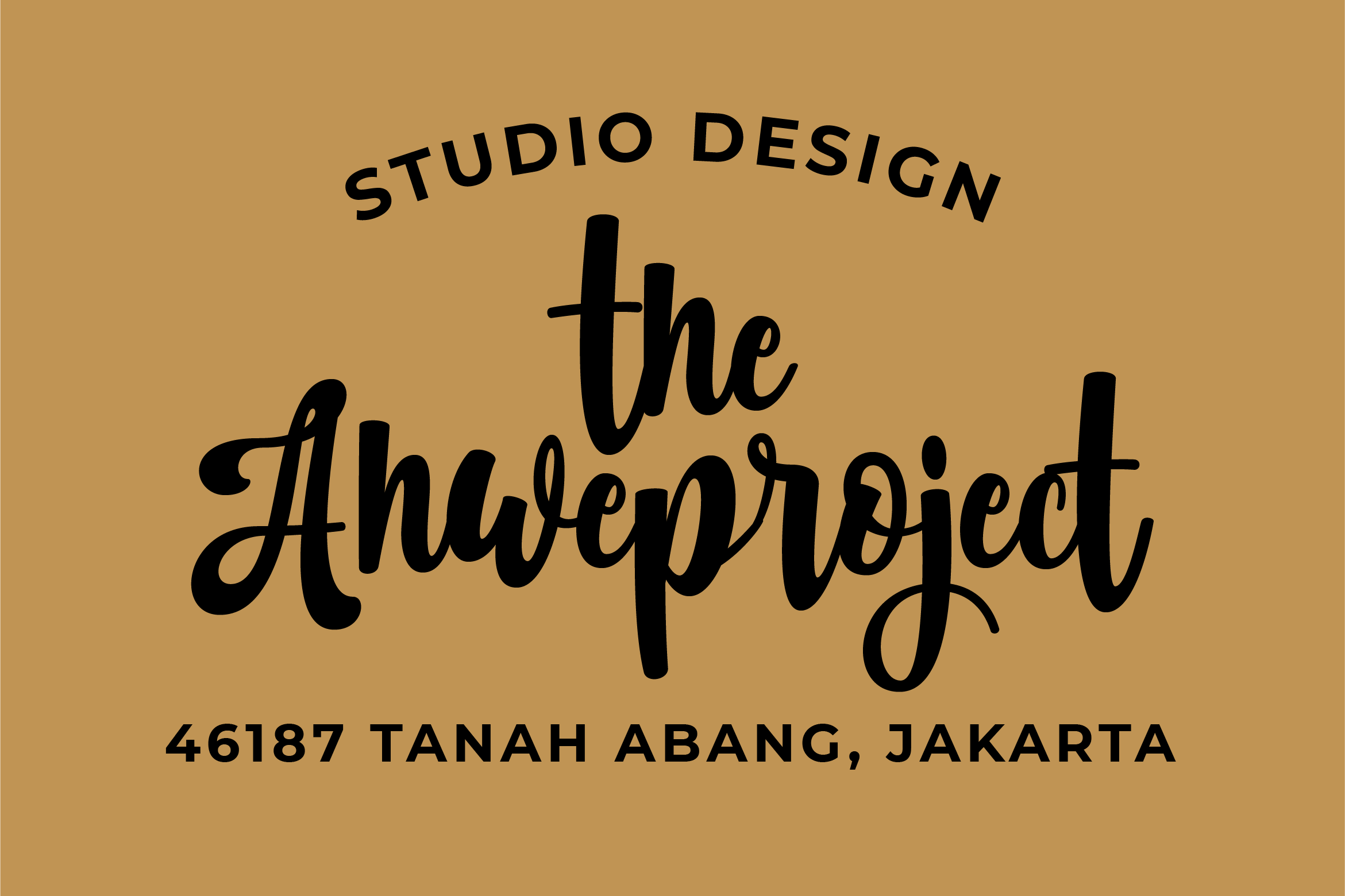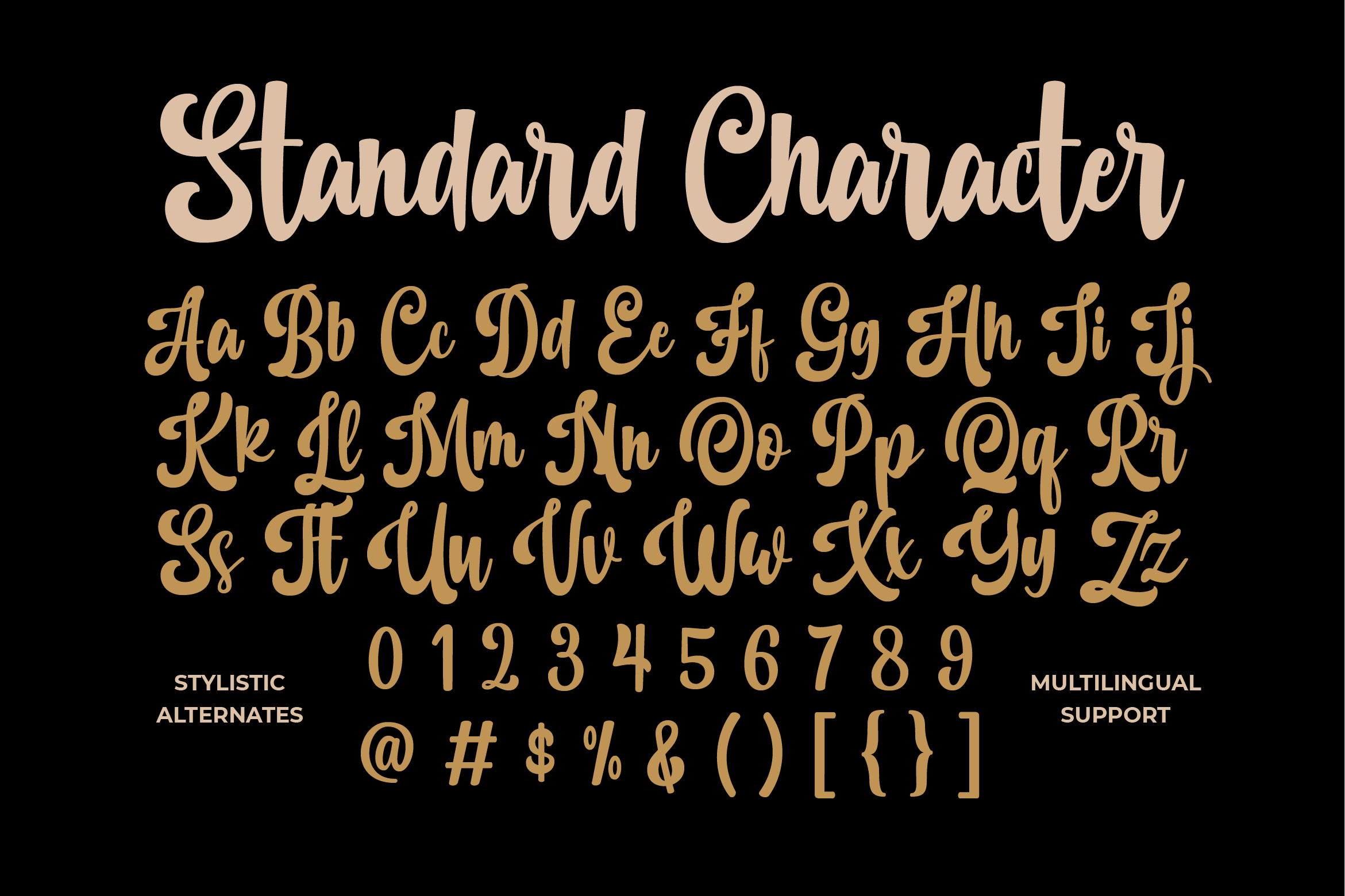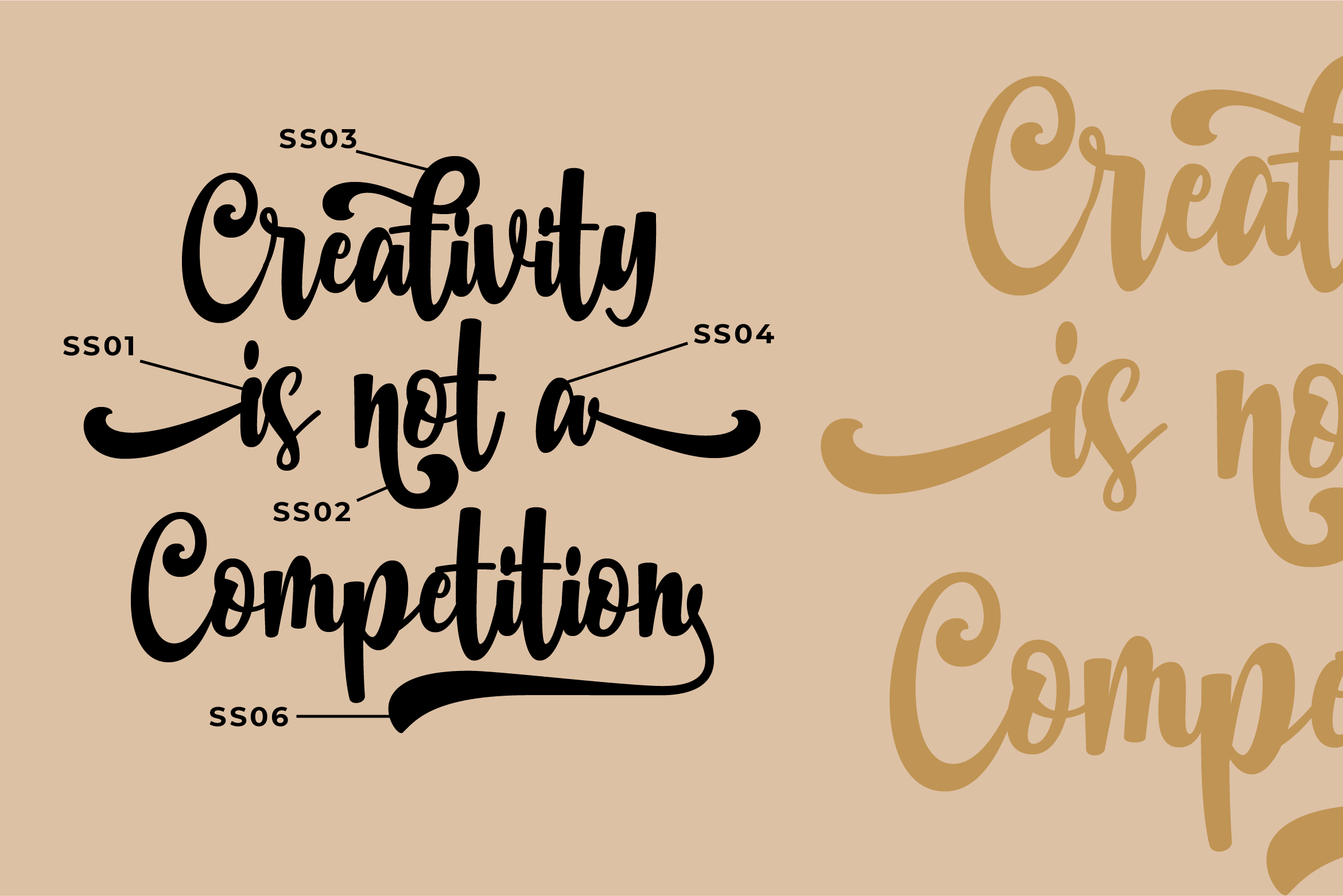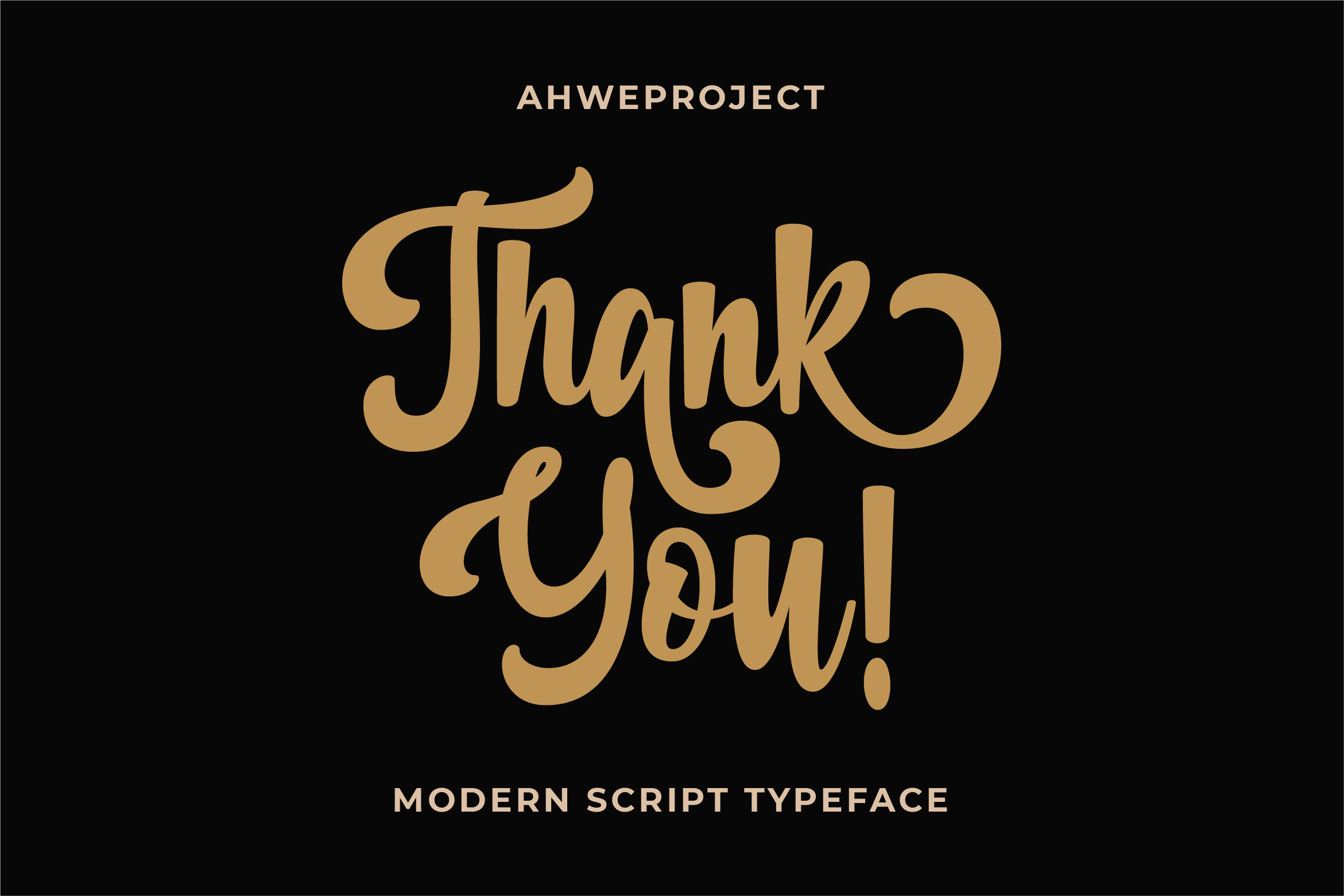
Honeystar Font
Honeystar Script Font
It’s a gorgeous and bold handwritten font, crafted to give your headlines and logotype projects a retro touch. This font is PUA encoded which means you can access all of the glyphs and swashes with ease!